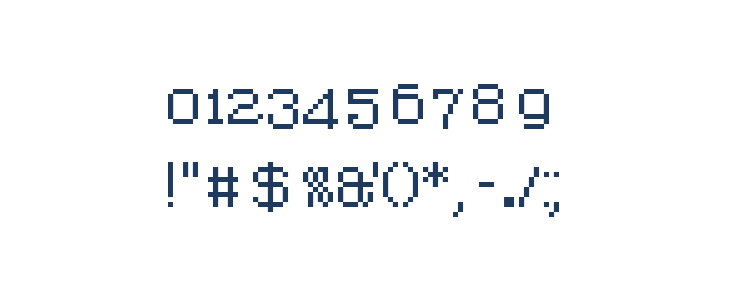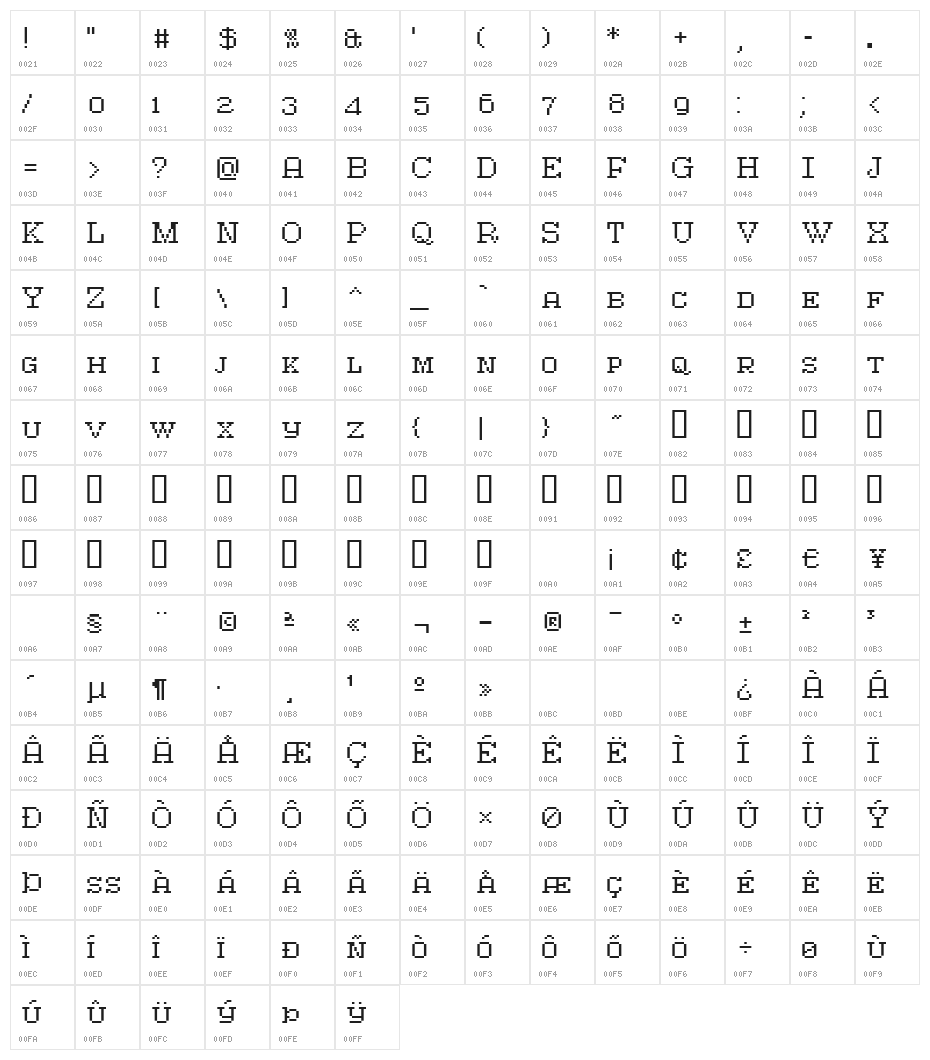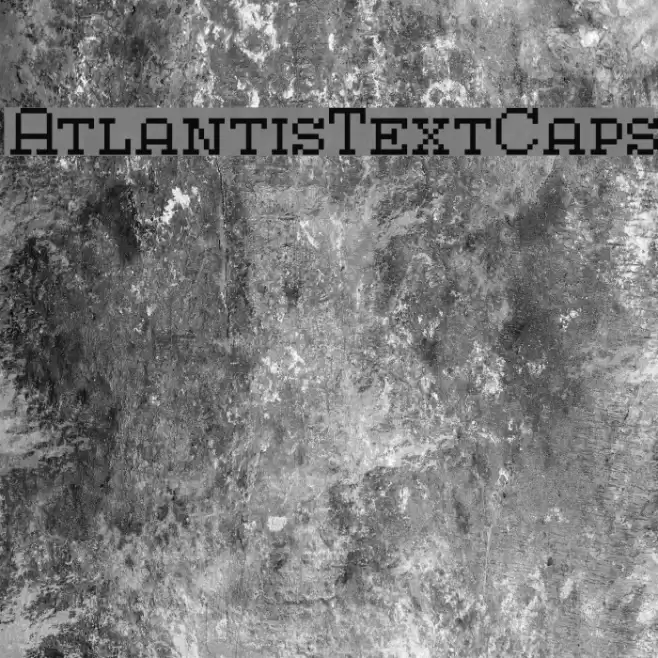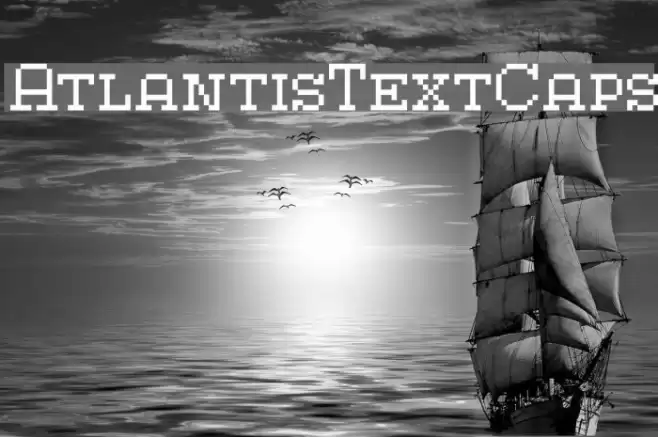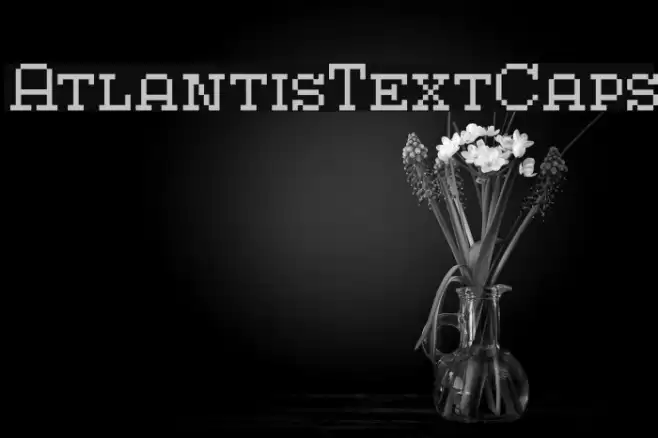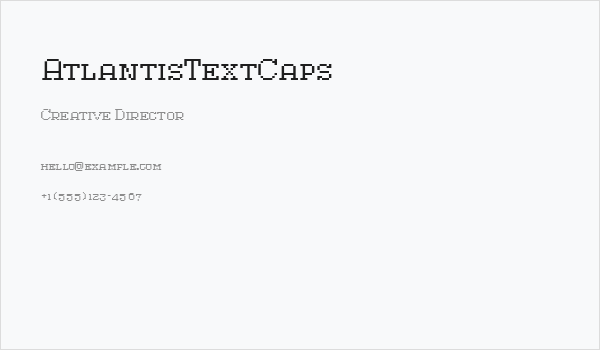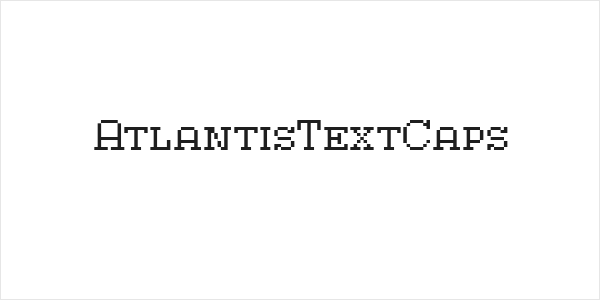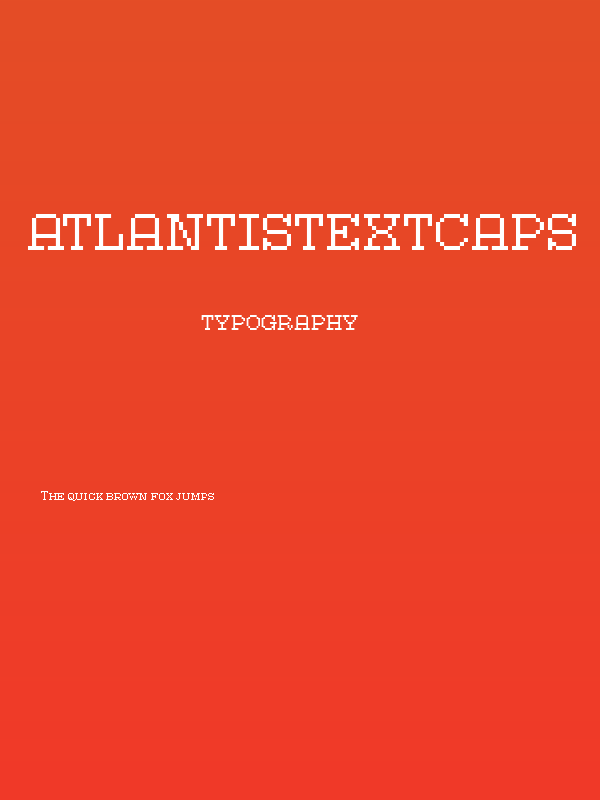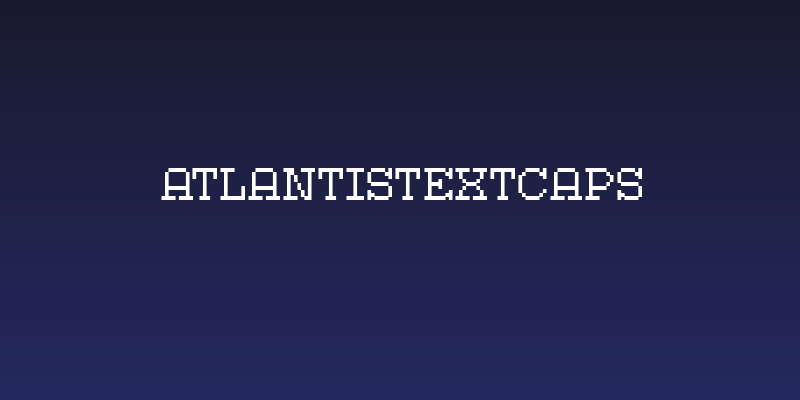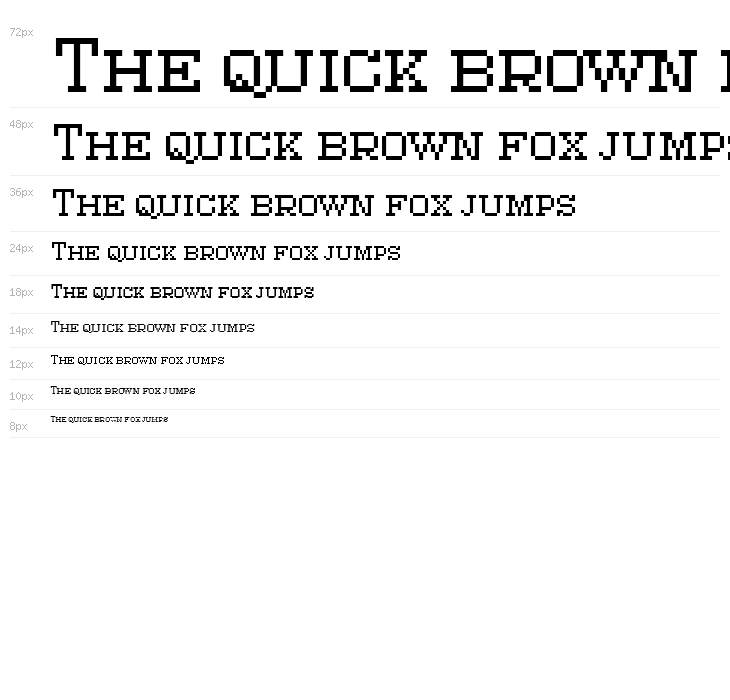
AtlantisTextCaps Font
AtlantisTextCaps Description
This font features a pixelated, blocky design reminiscent of early digital or video game typography. Each character is constructed with a grid-like precision, giving it a distinctly retro and digital feel. The uppercase letters are bold and uniformly spaced, maintaining a consistent height and width throughout. Numbers and special characters follow the same pixelated style, ensuring a cohesive look across all elements. The font's geometric nature makes it highly legible, even at smaller sizes, while its unique style adds a nostalgic touch to any design.
Overall StyleRetro, Digital
Use CaseHeadlines, Logos, Digital Art
Proposed ProjectsIdeal for video game design, retro-themed posters, digital art projects, and any creative work that seeks to evoke a sense of nostalgia.